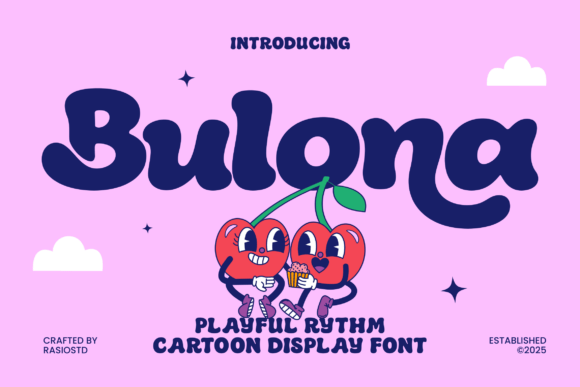
The Joyful World of Bulona Font: A Designer’s Delight
I’ll never forget the time I was working on a children’s book project, and my client asked for a font that would make the story come alive. I scoured the internet, tried countless fonts, but nothing seemed quite right. That was until I stumbled upon Bulona Font. Its playful, cheerful energy and cartoon-like charm instantly won me over. I knew right then and there that it was the perfect fit for the project. In this article, I’ll share with you why Bulona Font has become a staple in my design toolkit and how you can make the most of its bouncy charm.
A Personal Review of Bulona Font
- ✨ Playful and cheerful energy: Bulona Font bursts with a lively personality that’s perfect for projects that need a bit of whimsy.
- ✅ Multilingual support: With a full character set, you can use Bulona Font for projects that require text in multiple languages.
- 🌈 Colorful and animated typography: Bulona Font’s soft rhythm and organic flow make it a delight to use for headlines, children’s projects, packaging, or creative illustrations.
- 👍 Ease of use: Whether you’re a seasoned designer or a beginner, Bulona Font is easy to work with and instantly brightens up any design.
While Bulona Font is an amazing addition to any design project, there are a few things to keep in mind:
- ⚠️ Legibility at small sizes: Like many script fonts, Bulona Font can be a bit tricky to read at very small sizes. It’s best used for headlines or larger text.
- 🤔 Overuse: With its playful charm, it’s easy to overuse Bulona Font. Make sure to balance it with other fonts to keep your design fresh.
- Experiment with OpenType features like stylistic alternates to add more personality to your text.
The Backstory of Bulona Font
Bulona Font was designed with one goal in mind: to bring joy and whimsy to typography. Its creator, a passionate typographer, wanted to craft a font that would instantly brighten up any design. Inspired by playful cartoons and children’s illustrations, Bulona Font was born. Today, it’s a beloved font among designers who love expressive, colorful, and animated typography.
Q: What type of projects is Bulona Font best suited for?
A: Bulona Font is perfect for projects that require a playful and cheerful touch, such as children’s books, packaging, creative illustrations, and headlines.
Q: Is Bulona Font easy to read?
A: Bulona Font is generally easy to read, especially at larger sizes. However, like many script fonts, it can be a bit tricky to read at very small sizes.